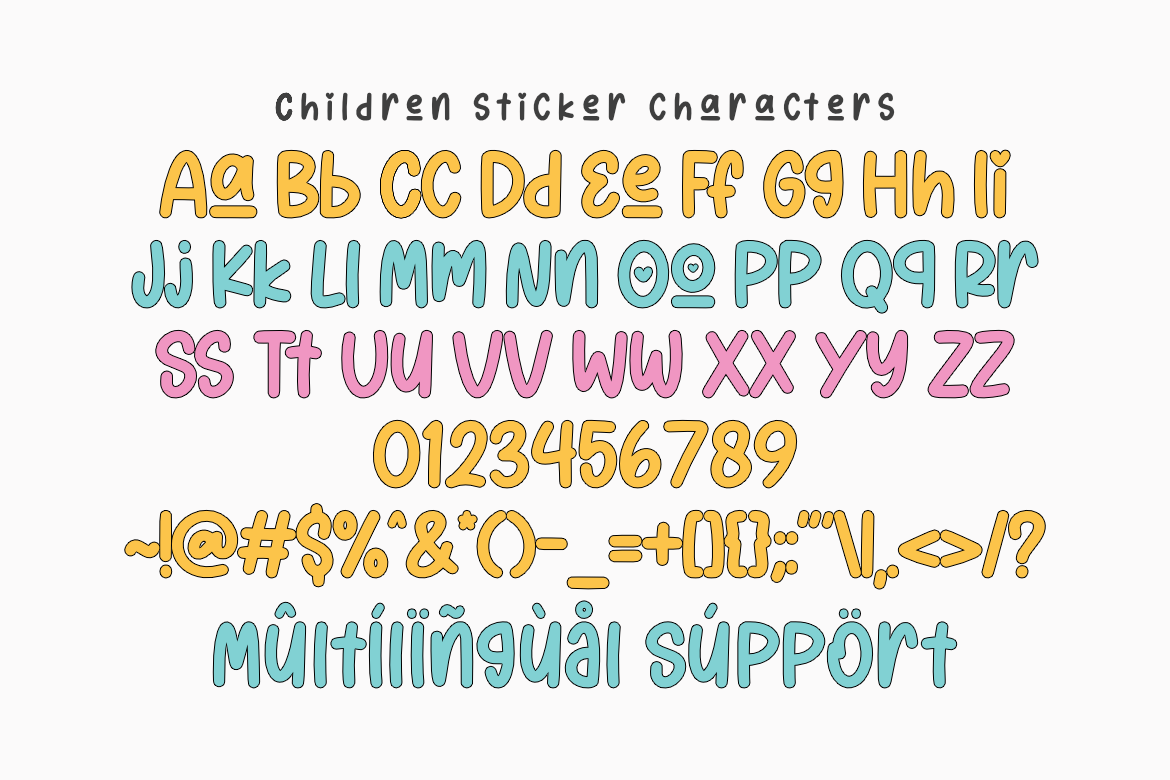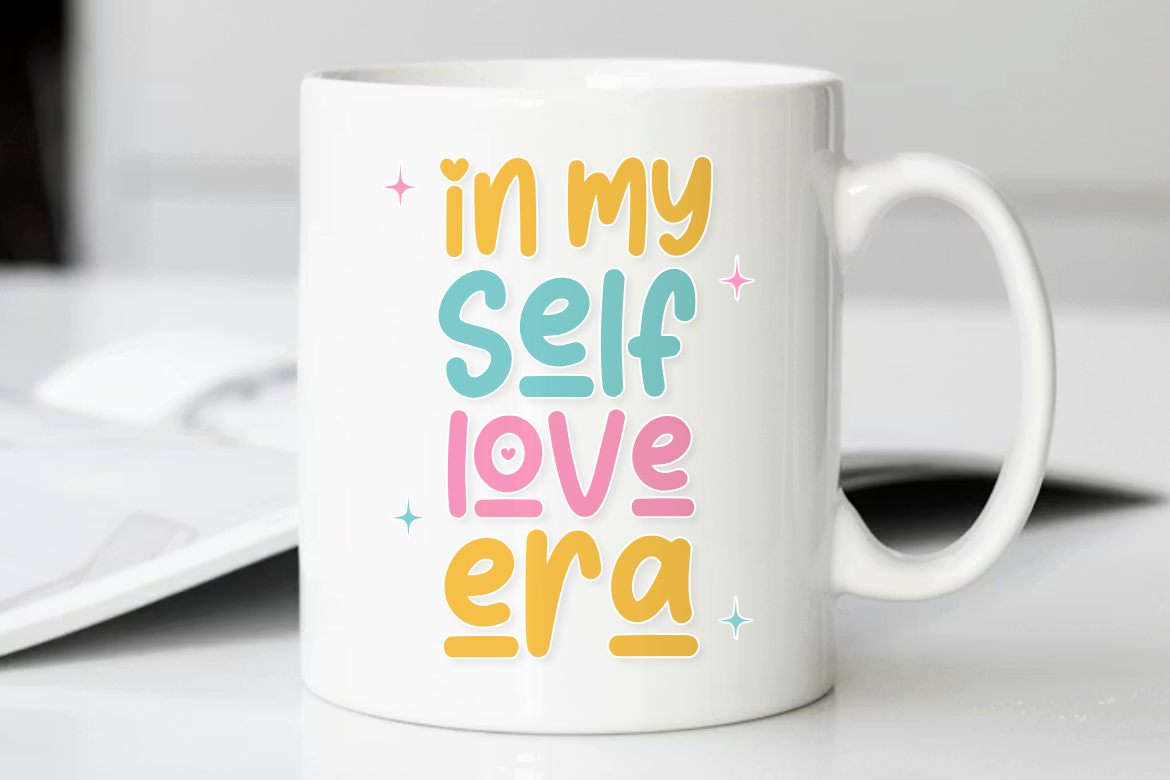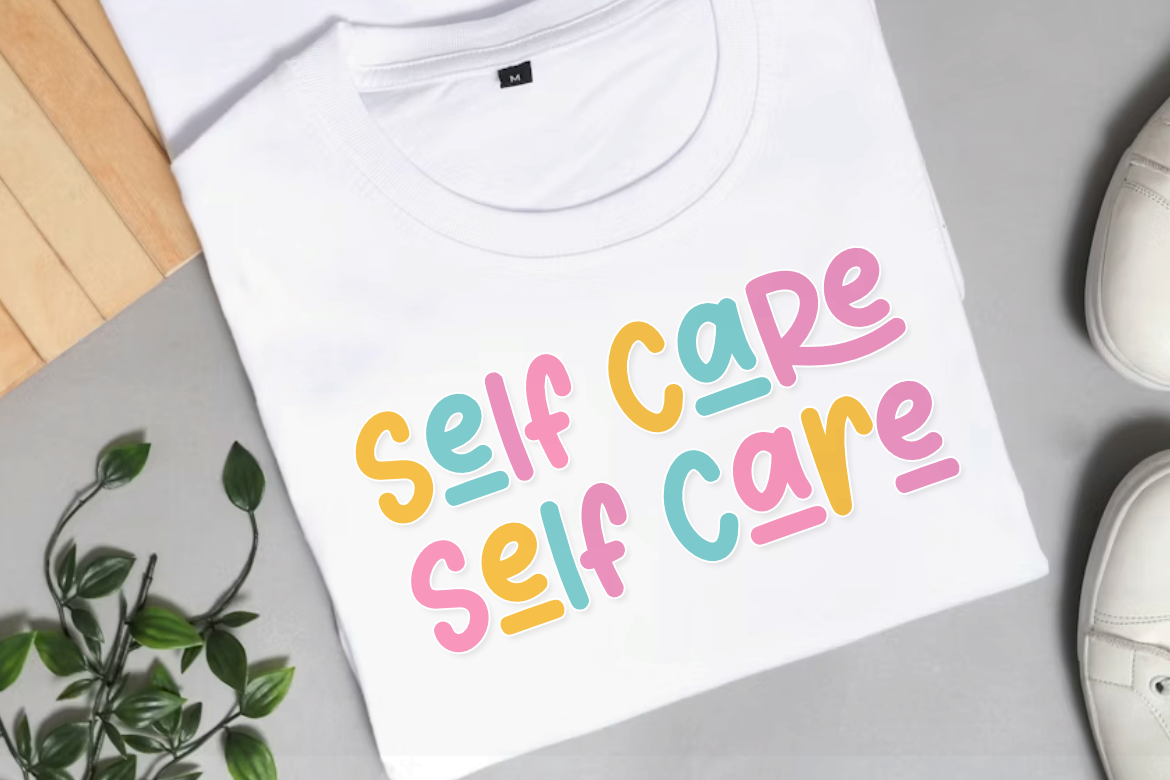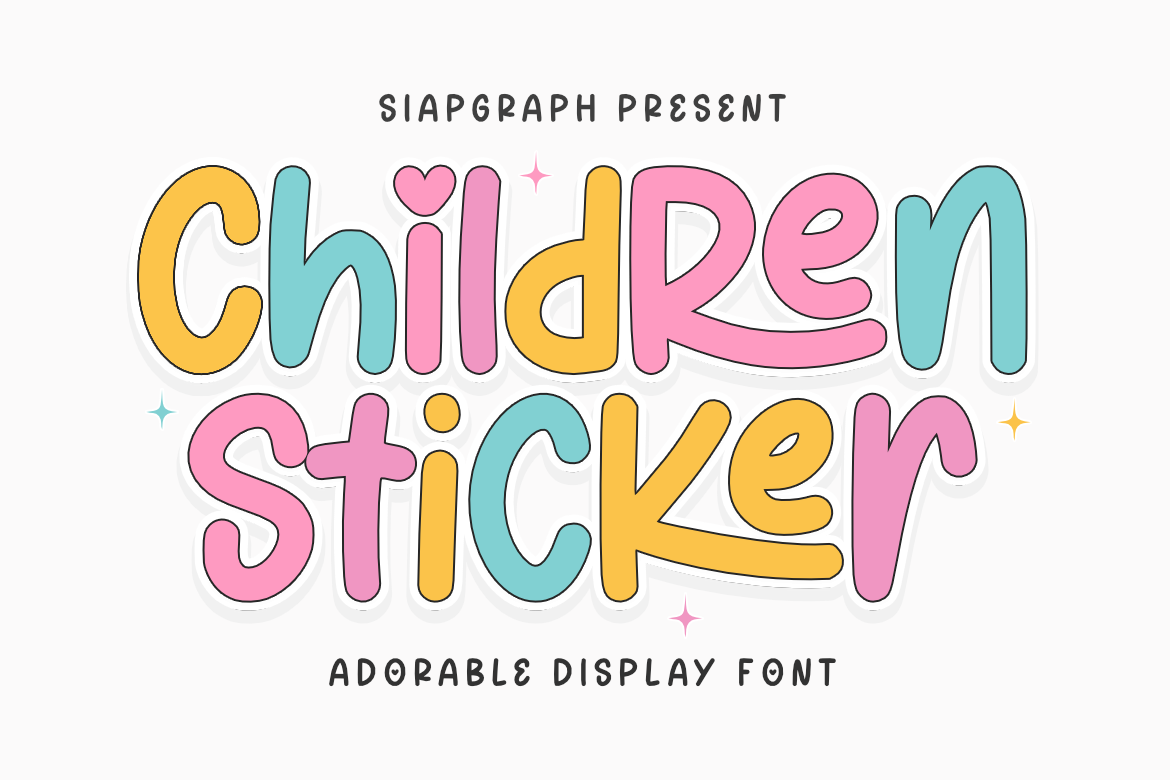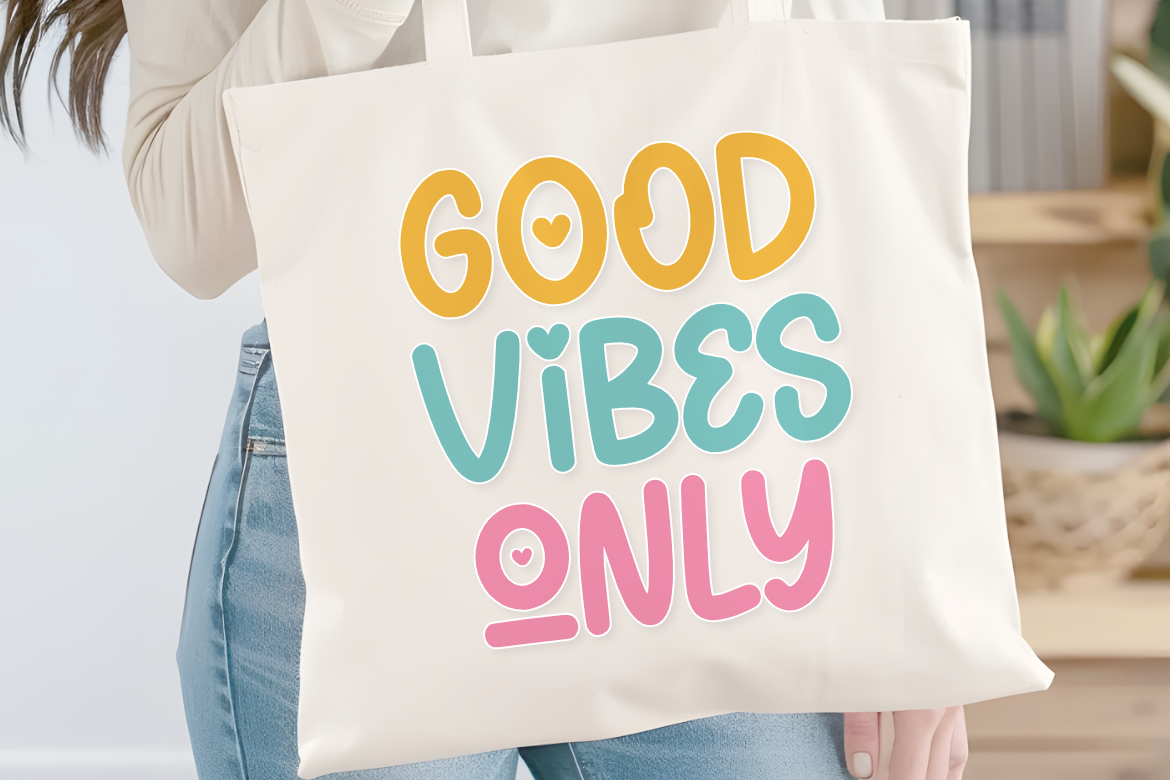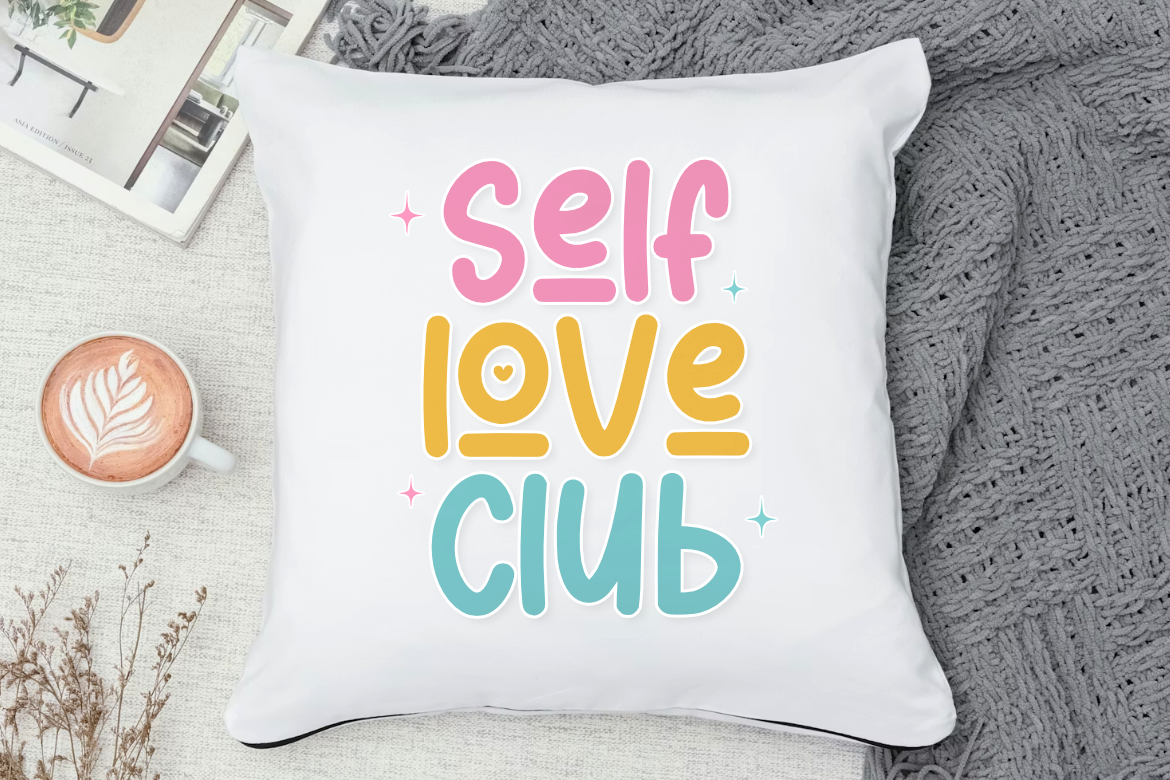
Children Sticker - Adorable Display Font for Cricut and Sublimation
Children sticker is an adorable display font inspired by the whimsical and cheerful world of childhood stationery and colorful decals. This typeface features soft, rounded strokes and playful proportions that evoke a sense of joy and creativity, making it a standout choice for high-impact designs. Its clean, bold lines are perfectly optimized for the crafting community, ensuring a smooth and easy weeding experience for all your vinyl and digital cutting projects.
Perfect for: creating personalized kids' stickers, school labels, custom lunchbox decals, nursery wall art, birthday invitations, and t-shirt designs for children. It also works exceptionally well for classroom decor, teacher appreciation gifts, digital scrapbooking, and playful social media branding.
Great for holiday themes such as Back to School season, Children's Day, Birthdays, and Spring celebrations, adding a friendly and spirited touch to every festive project!
β Stylish & unique letterforms